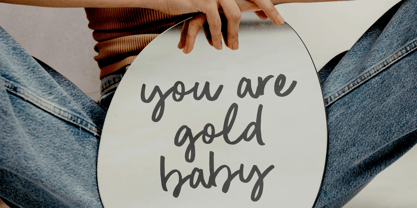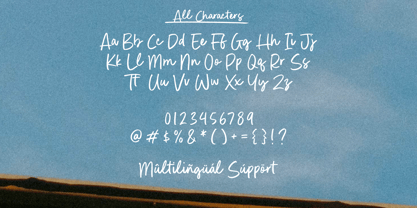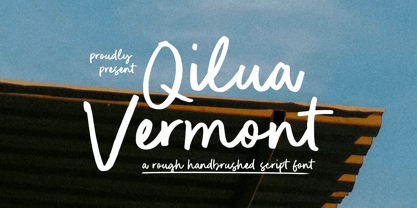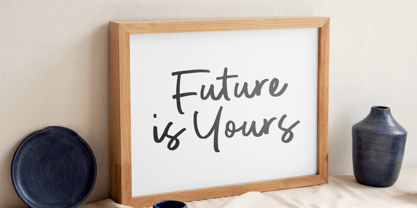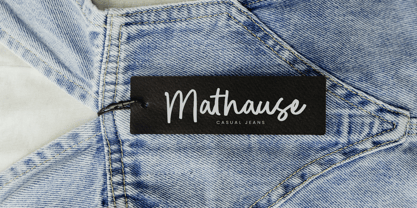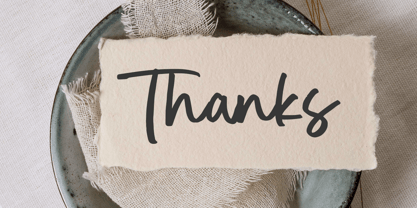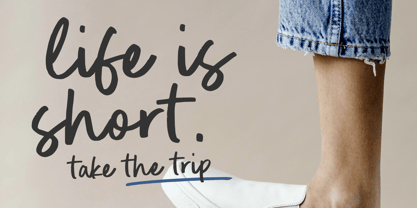
Qilua Vermont
Introduced by Timurtype Studio!
Qilua Vermont is a Rough Handbrushed Script Font
This font is a bold and expressive hand-brushed script font that exudes raw energy and character. With its rough strokes and organic texture, this typeface adds a natural, rebellious charm to any design. Perfect for logos, posters, branding, and social media graphics, Qilua Vermont brings an authentic, handcrafted feel that stands out with confidence and creativity.
Qilua Vermont Font also supports multilingualism